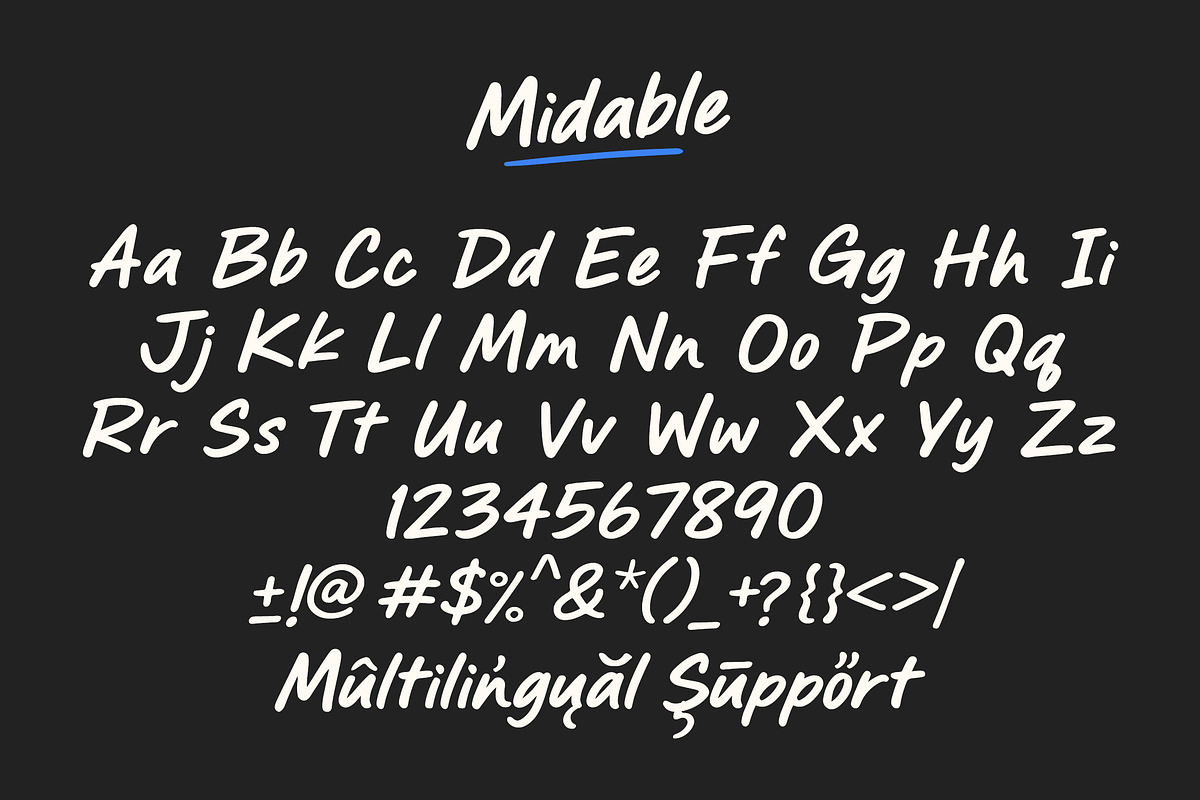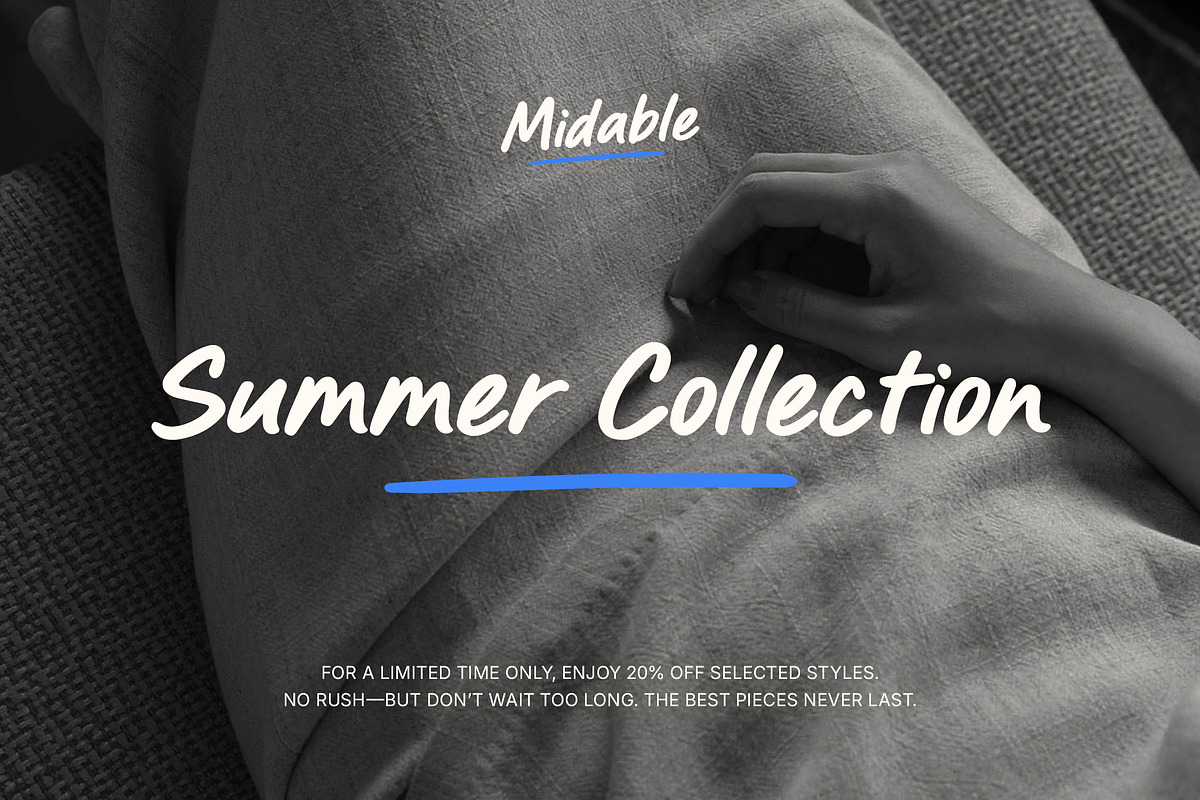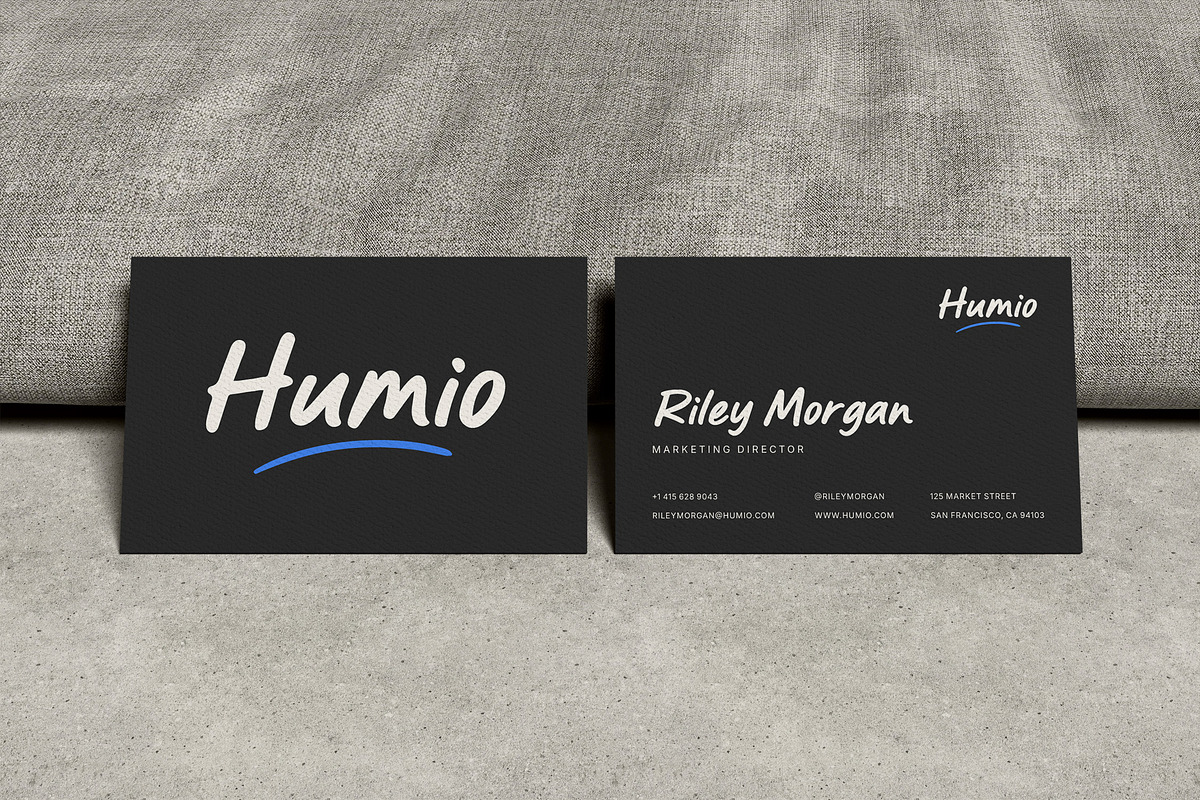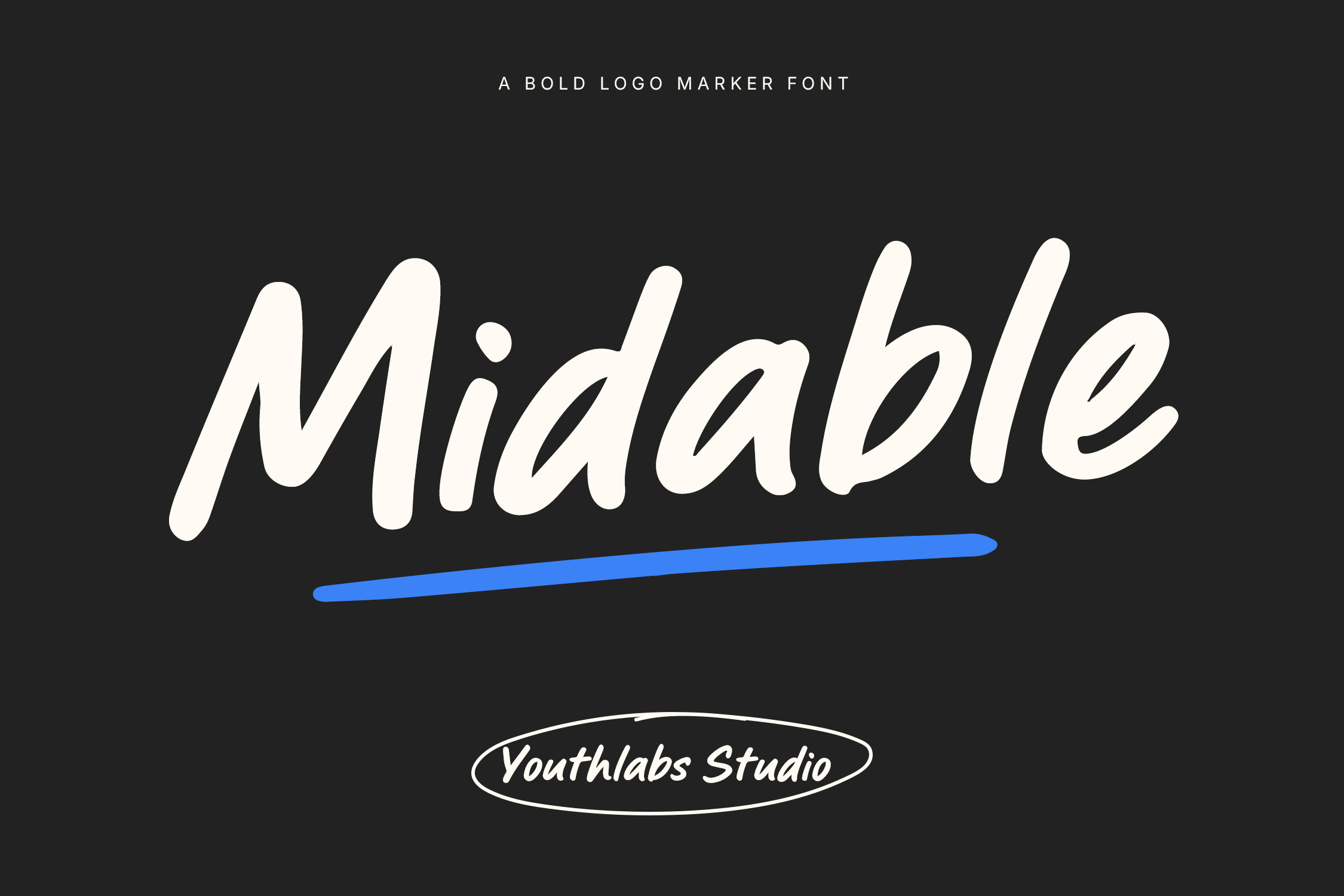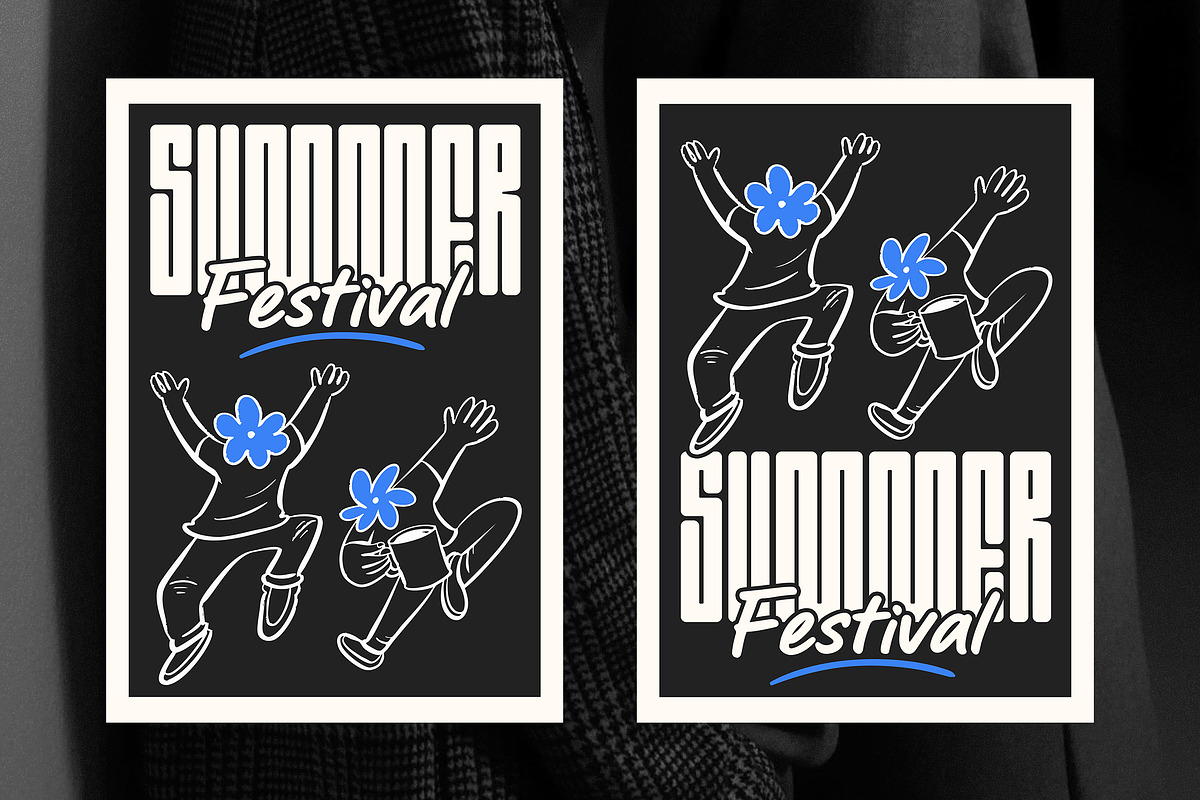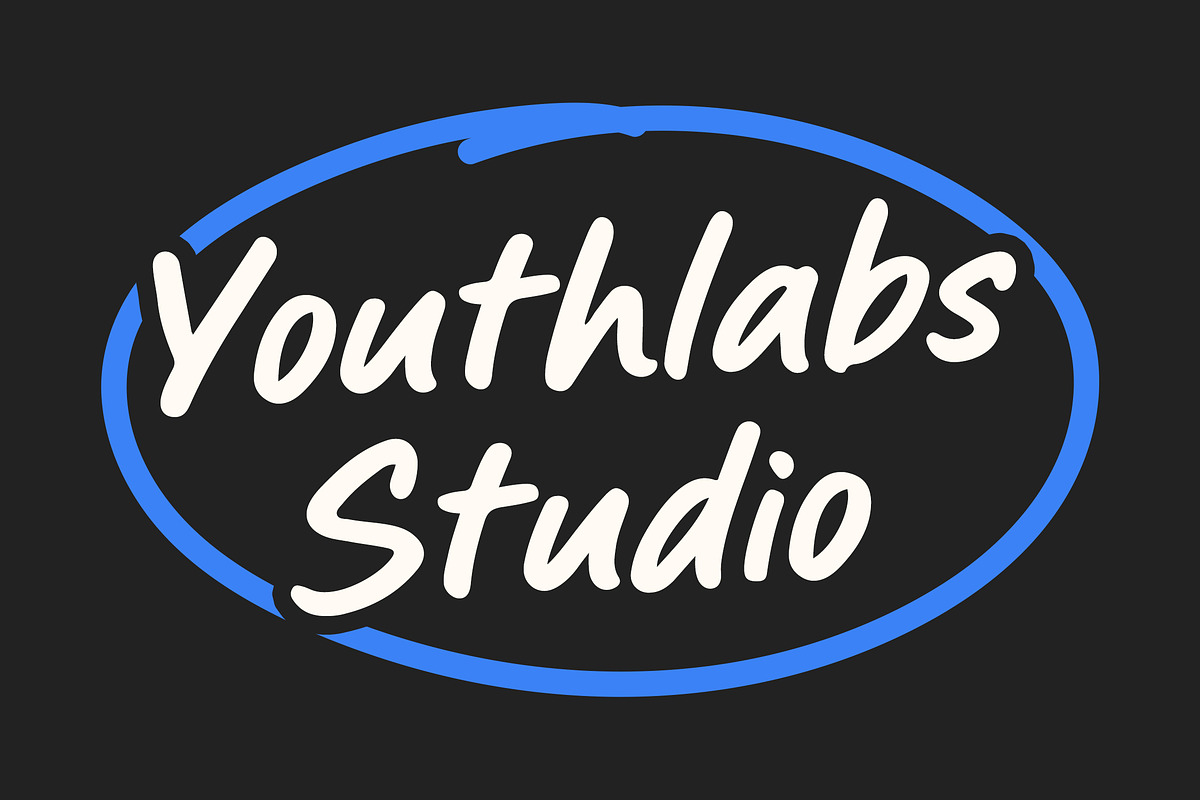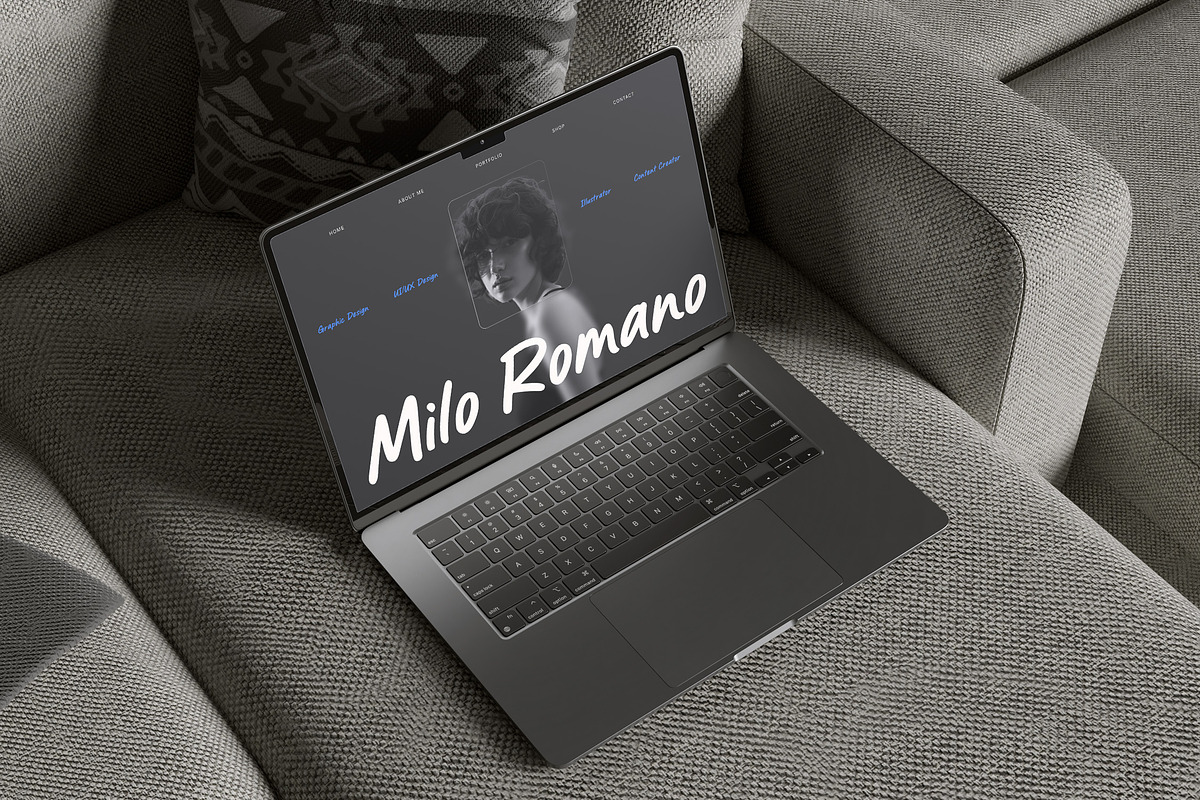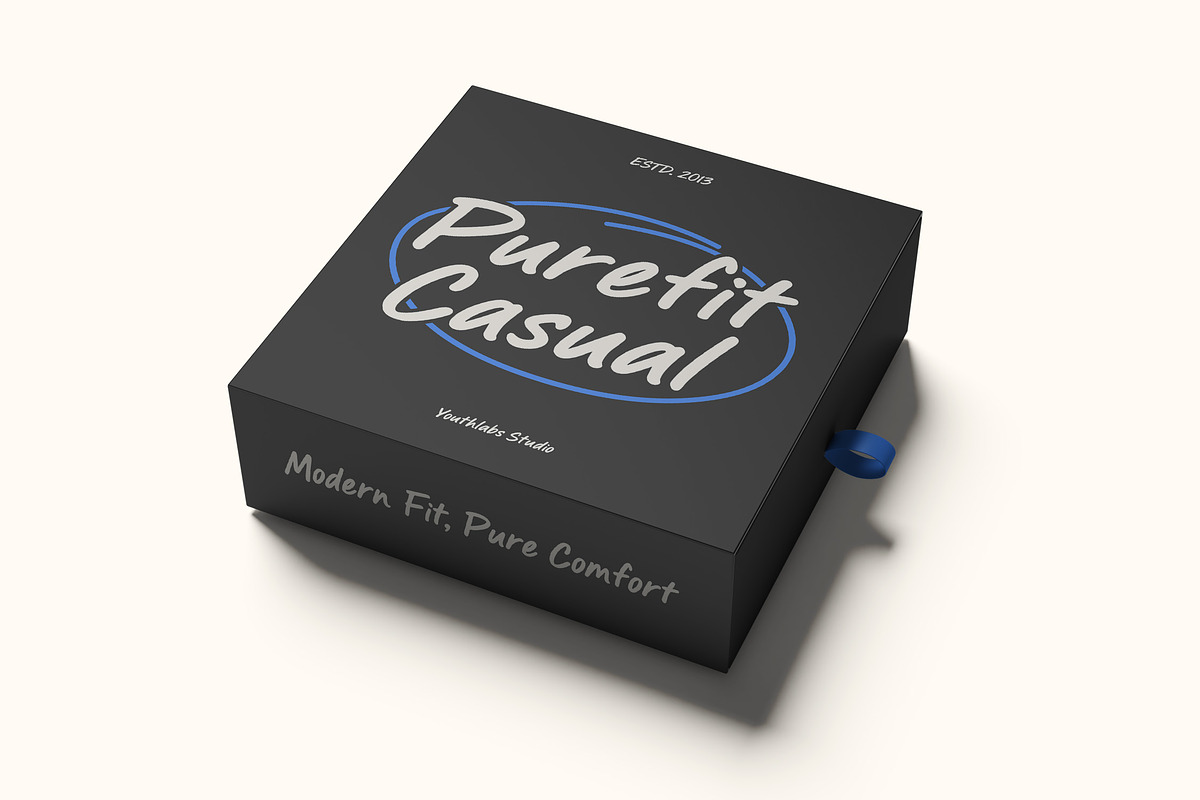
Midable - Bold Logo Marker Font
Midable is a high-octane marker font designed to dominate the visual landscape. Created with raw energy by Youthlabs Studio, this typeface brings an unapologetic boldness to every character, making it the ultimate tool for creators who need their messaging to feel hand-crafted yet professional. Whether you are crafting cinematic titles, high-energy sports branding, gritty social media overlays, or disruptive packaging, Midable delivers a punchy, authentic aesthetic that demands immediate attention. Its swift, deliberate strokes offer a unique blend of urban grit and modern sophistication, ensuring your projects stand out with a confident, human touch.
✨ Key Features
- Aggressive Marker Strokes
- Natural Hand-Drawn Flow
- High-Impact Legibility
- Energetic Forward Slant
- Full Alphanumeric Character Set
- Optimized Clean Kerning